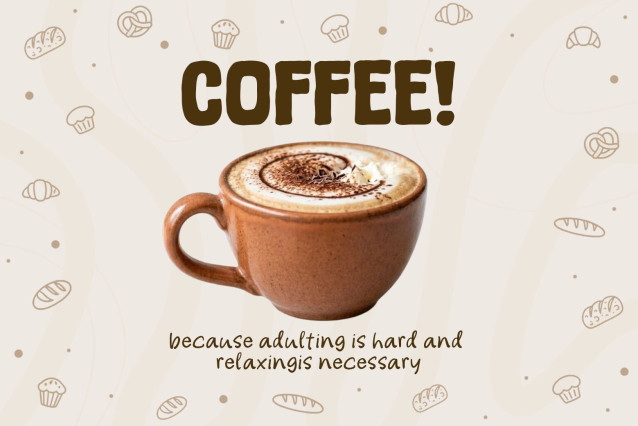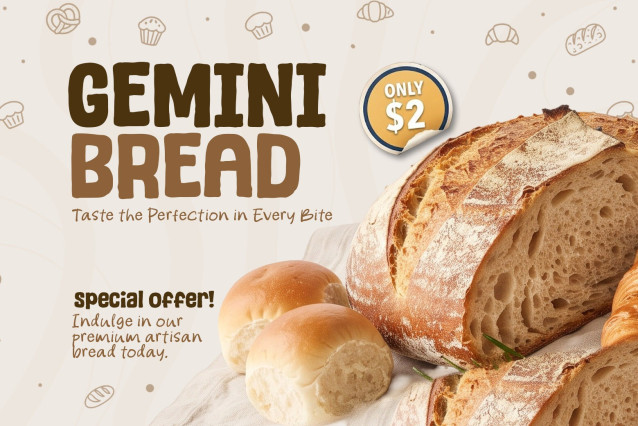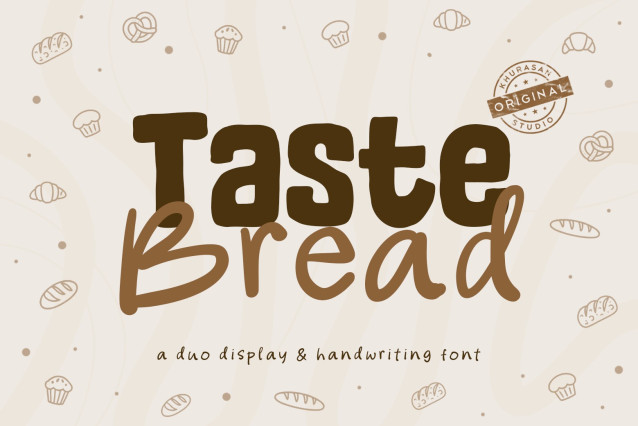
Taste Bread is a fun, quirky, and bold duo font designed to bring cheerful energy and personality to your creative projects. Combining a chunky, expressive display style with unique swirl accents and an organic handwritten companion, this pair creates an eye-catching contrast that instantly grabs attention.
Its playful shapes, thick cutouts, and handcrafted feel make it ideal for designs that need to look friendly, vibrant, and approachable.